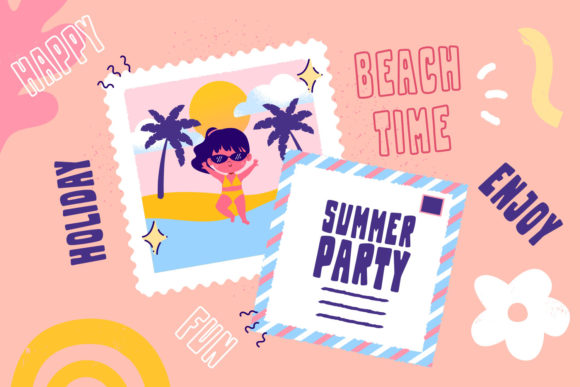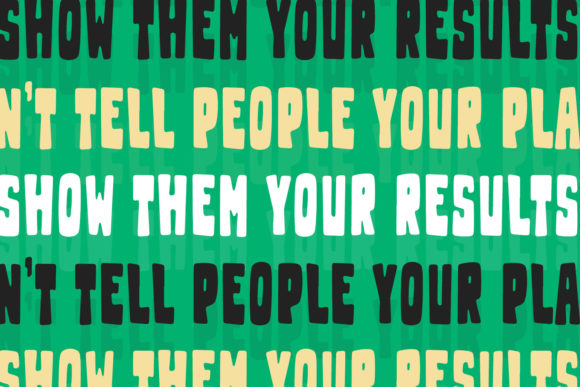
The Ultimate Guide to Hey Franky Font: Adding a Fun Touch to Your Designs
I’ll never forget the time I was working on a project for a client who wanted a bold, eye-catching font to make their brand stand out. I scoured the internet for hours, trying out different fonts, but none seemed quite right. That was until I stumbled upon Hey Franky Font. This bold and outline lettered display font has been a game-changer for my designs, and I’m excited to share its awesomeness with you! 😊
Hey Franky Font Review: The Good and the Great
Here’s what I love about Hey Franky Font:
- ✨ Bold and attention-grabbing: This font is perfect for making a statement and adding a fun touch to your designs.
- ✅ Easy to read: Despite its boldness, Hey Franky Font is surprisingly easy to read, even in smaller sizes.
- 🎉 Versatile: This font works well for a variety of design projects, from posters and flyers to social media graphics and crafts.
Now, no font is perfect, and Hey Franky Font has a few small quirks:
- 🤔 Limited use in body text: While Hey Franky Font is amazing for headings and titles, it’s not the best choice for body text due to its boldness.
- ⚠️ May not work well in small sizes: If you’re planning to use Hey Franky Font in very small sizes (e.g., captions), it might not be the best choice.
The Story Behind Hey Franky Font
Hey Franky Font was designed by a team of creatives who wanted to create a font that would add a fun touch to any design project. Inspired by classic bold fonts and modern digital designs, Hey Franky Font is the perfect blend of playfulness and sophistication. Whether you’re a designer, crafter, or hobbyist, Hey Franky Font is sure to become a favorite in your font collection.
| Font Name | Hey Franky Font |
| Author | Kotak Kuning Studio |
Q: What is Hey Franky Font?
A: Hey Franky Font is a bold and outline lettered display font designed to add a fun touch to any design project.
Q: Is Hey Franky Font easy to read?
A: Yes, despite its boldness, Hey Franky Font is surprisingly easy to read, even in smaller sizes.